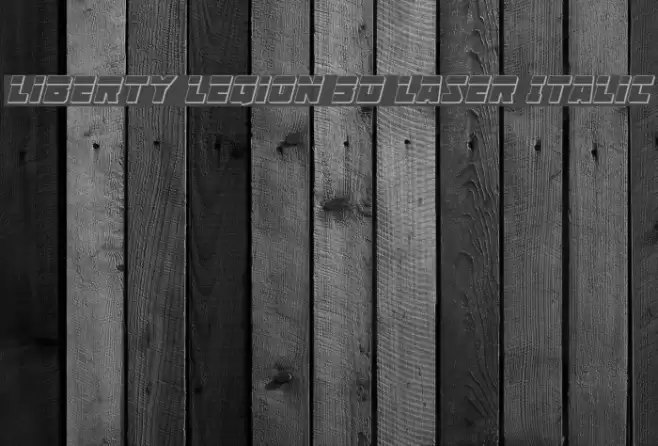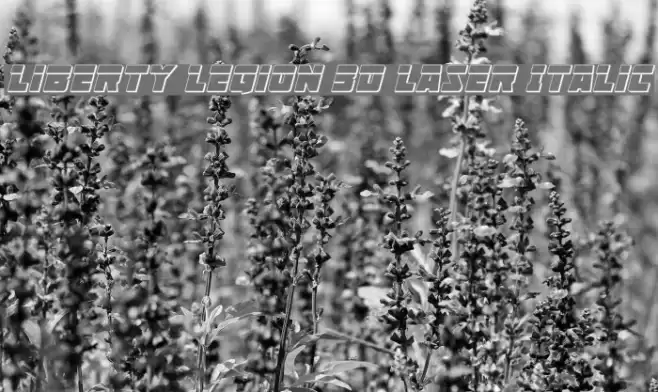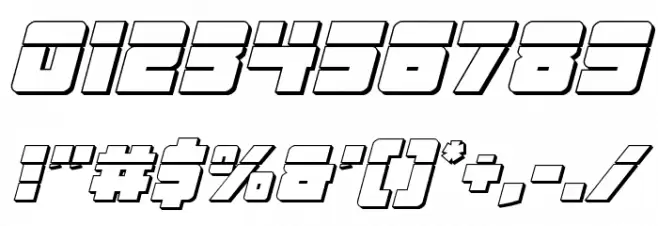
Liberty Legion 3D Laser Italic Font
Liberty Legion 3D Laser Italic Description
This font features a bold, three-dimensional design with a futuristic and dynamic appearance. The letters are constructed with a blocky, geometric style, giving them a strong and impactful presence. The italic slant adds a sense of motion and speed, enhancing its modern and edgy look. The 3D effect is achieved through a clever use of shading and outlines, creating depth and a laser-like precision. This font is ideal for projects that require a bold statement and a contemporary aesthetic.
A bold, 3D geometric font with an italic slant and futuristic style from Uncategorized fonts.
- Proposed Projects: Ideal for video game titles, sci-fi movie posters, tech branding, and futuristic event flyers.